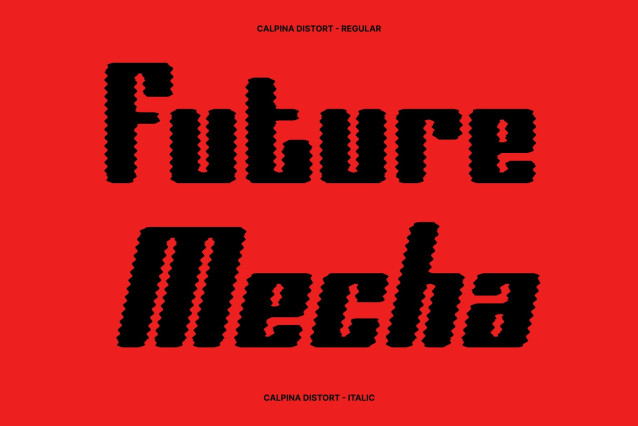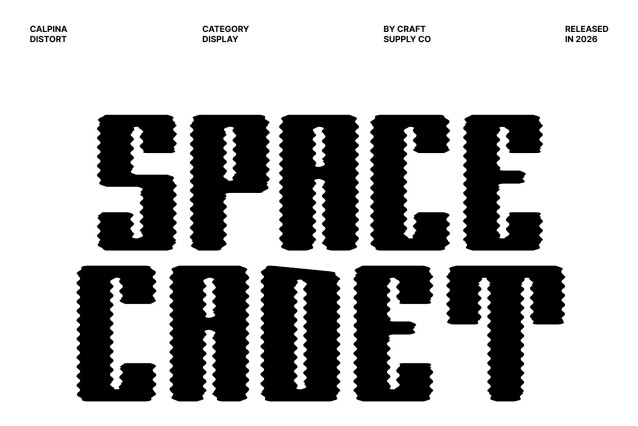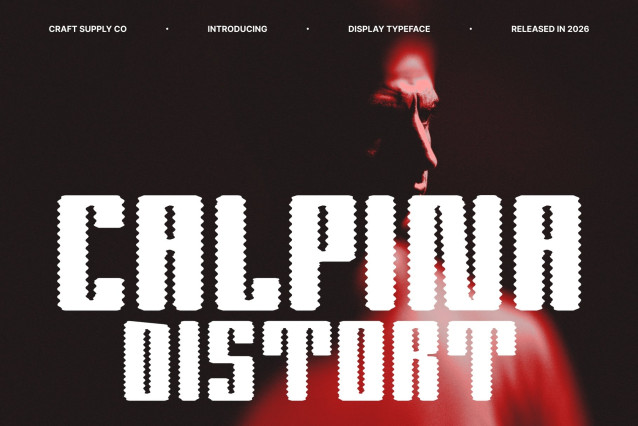
Calpina Distort – Bold Sans Serif Font: Playful Nostalgia with a Melting Edge
Bold Sans Serif with Retro Energy
This is a bold sans serif typeface inspired by 90s and early 2000s nostalgia, designed to express fun, playfulness, and vibrant personality. Its strong letterforms and confident proportions create an eye-catching presence that instantly brings a cheerful retro vibe to any design.
Melting Distortion for Trendy Expression
The distort style introduces soft, melting edges that add a lively and artistic twist to the bold structure. This fluid effect gives the font movement and charm, turning simple typography into a playful visual statement that feels fresh, trendy, and expressive.